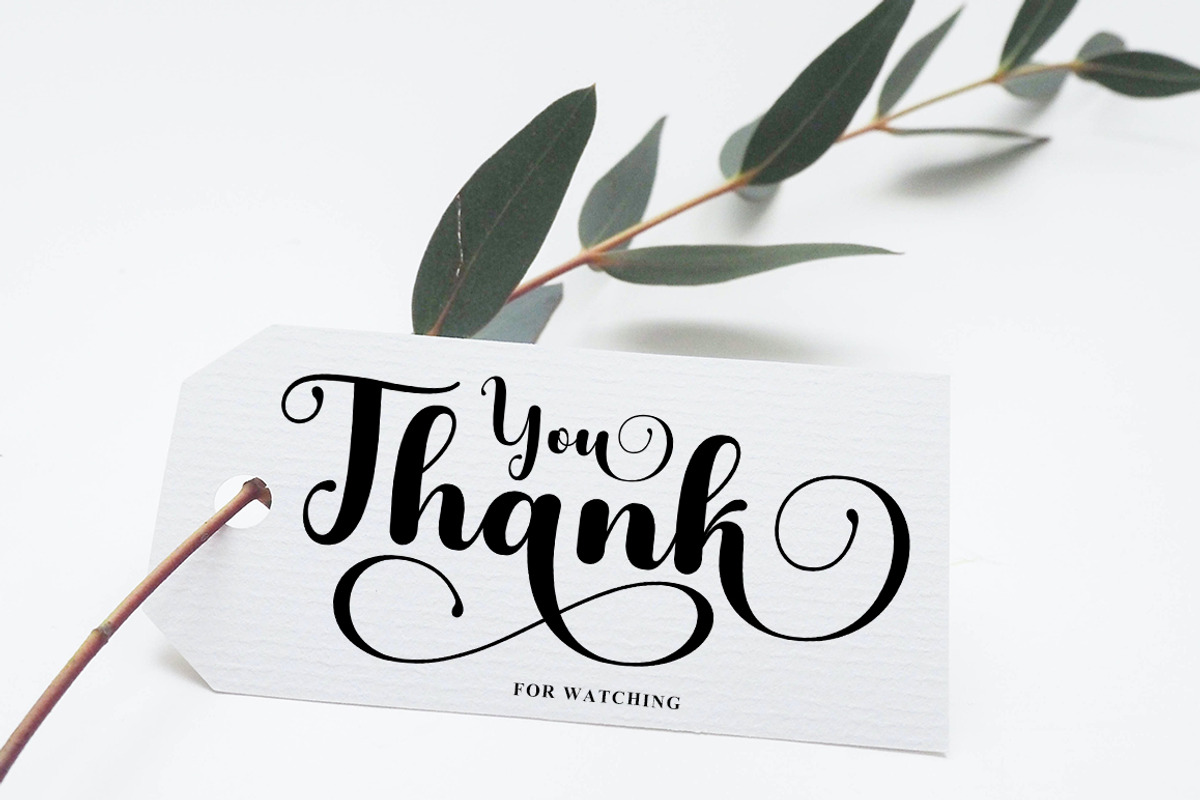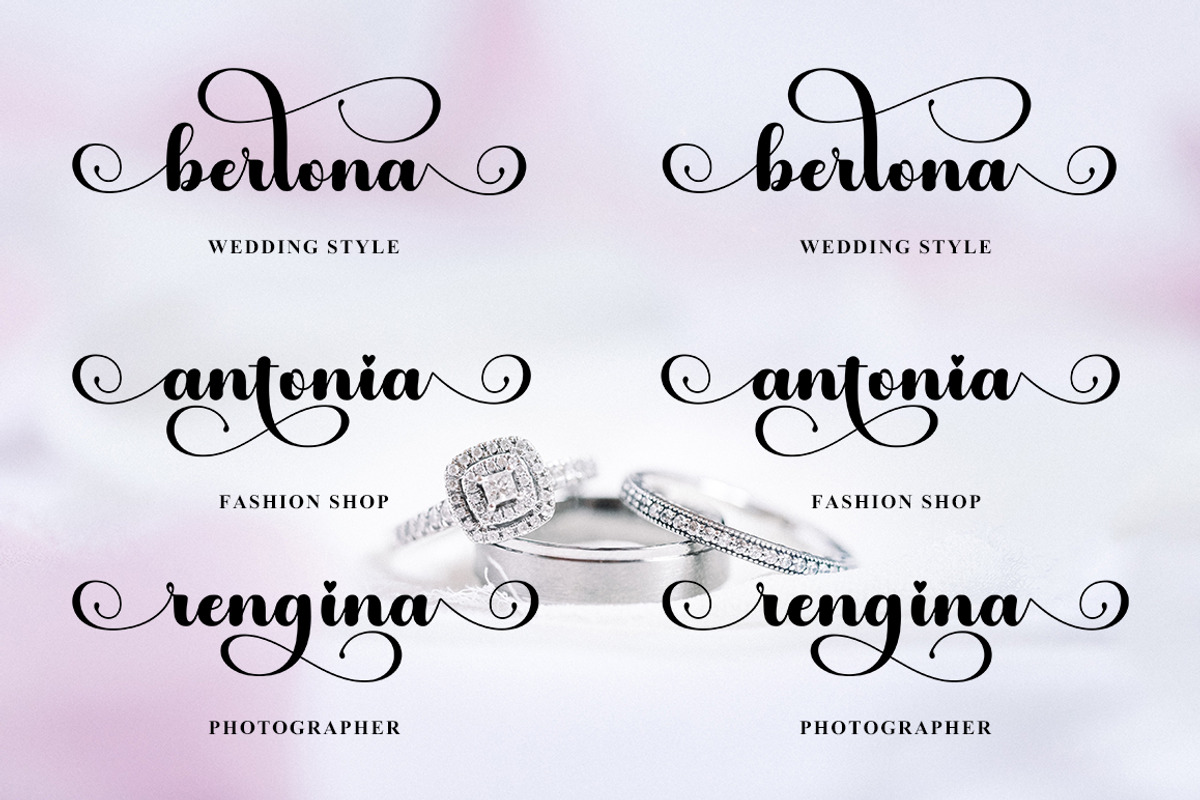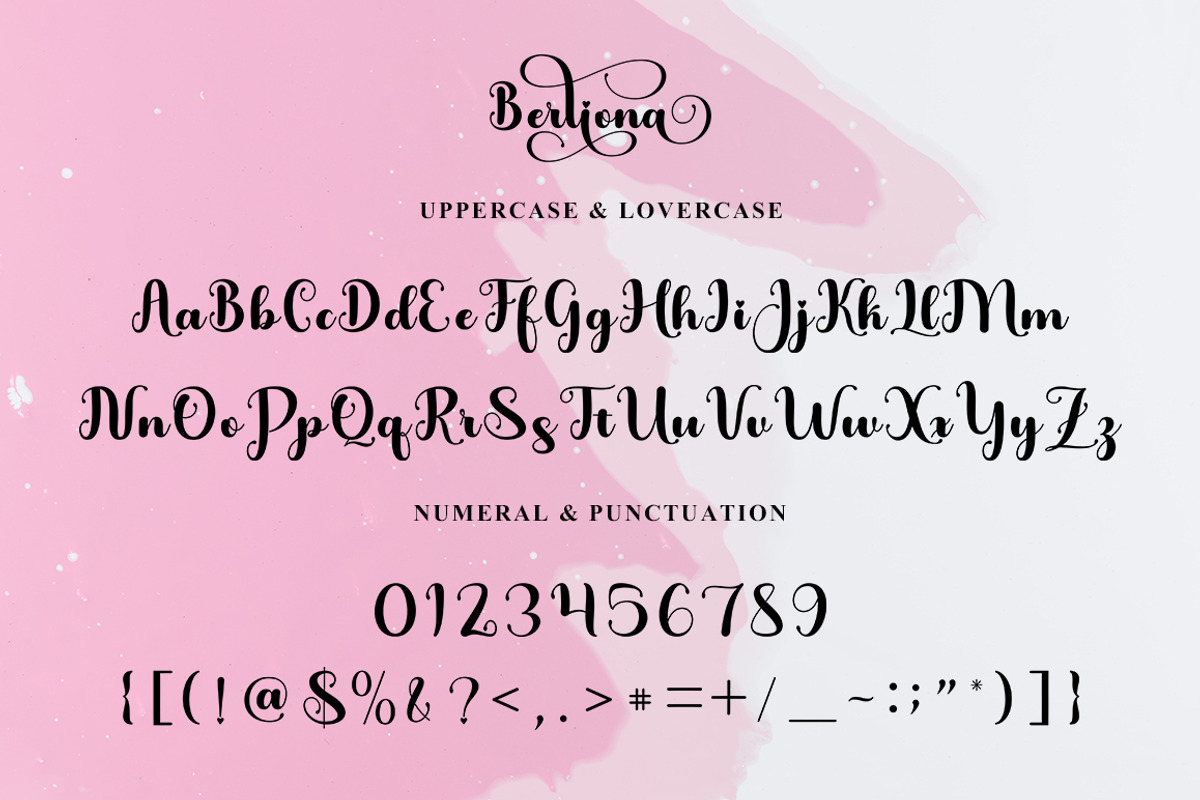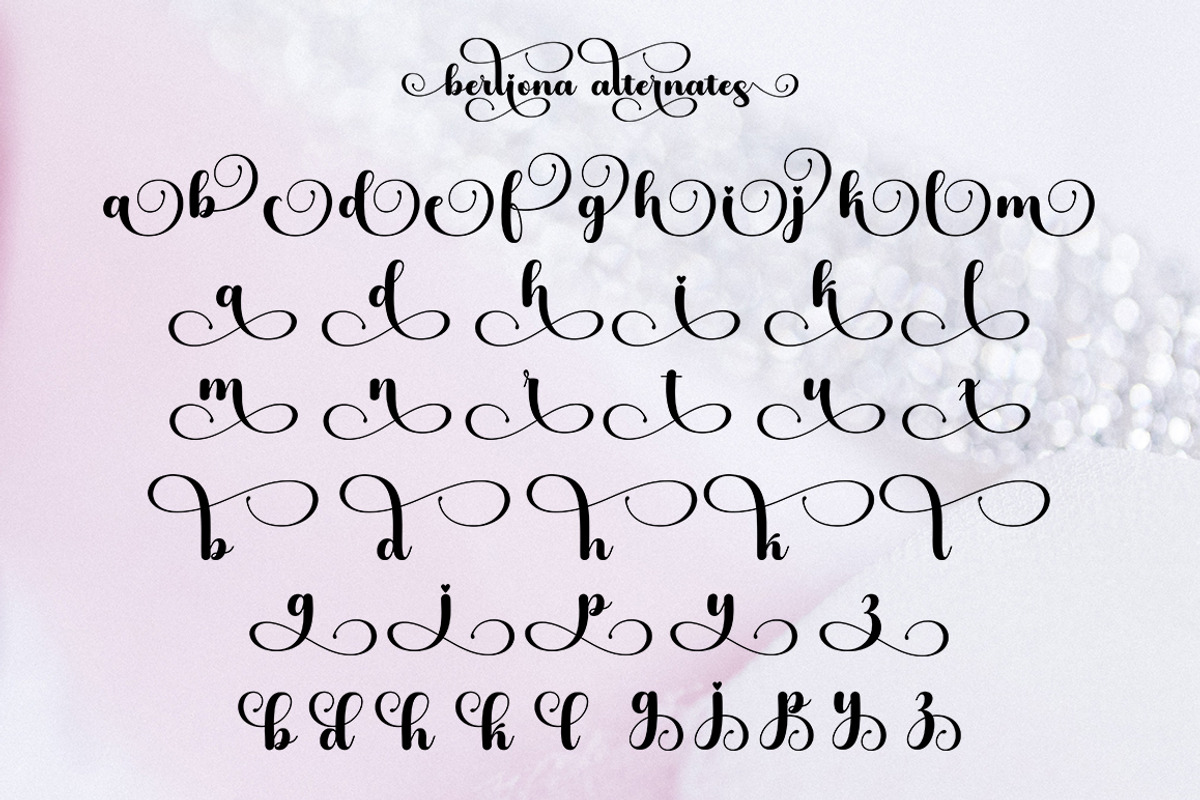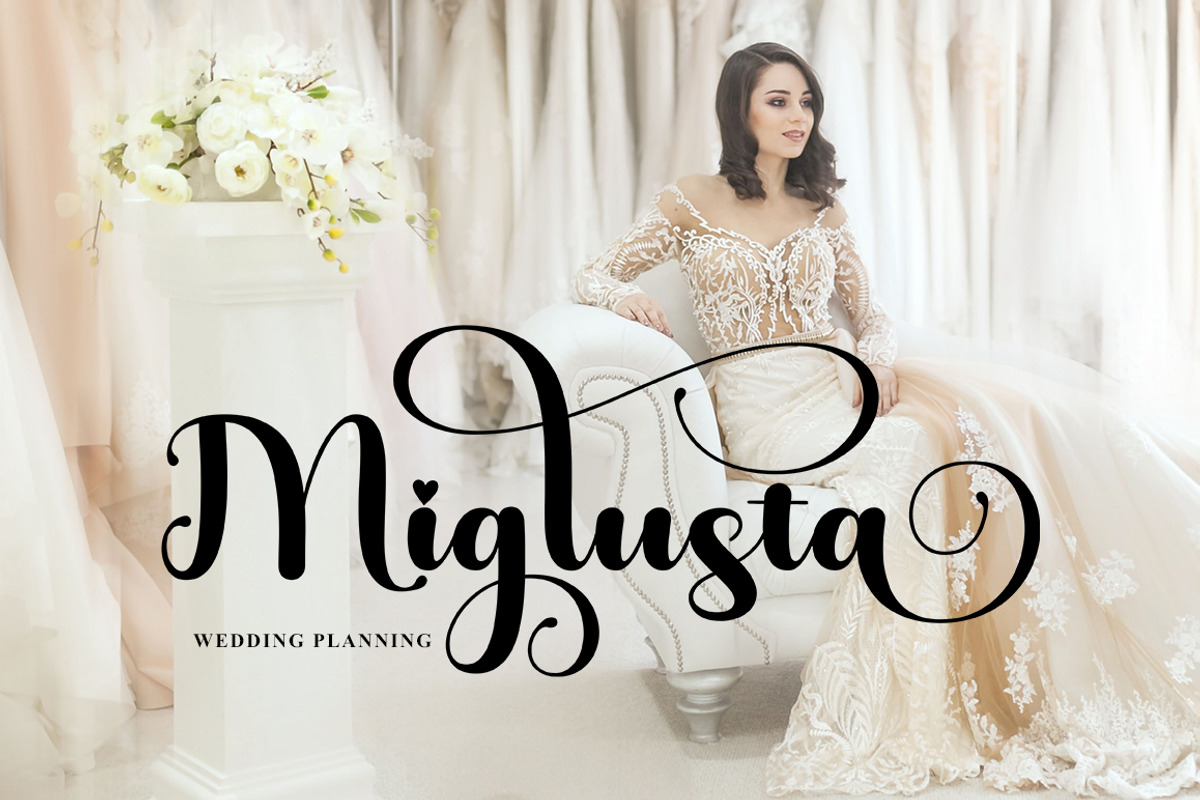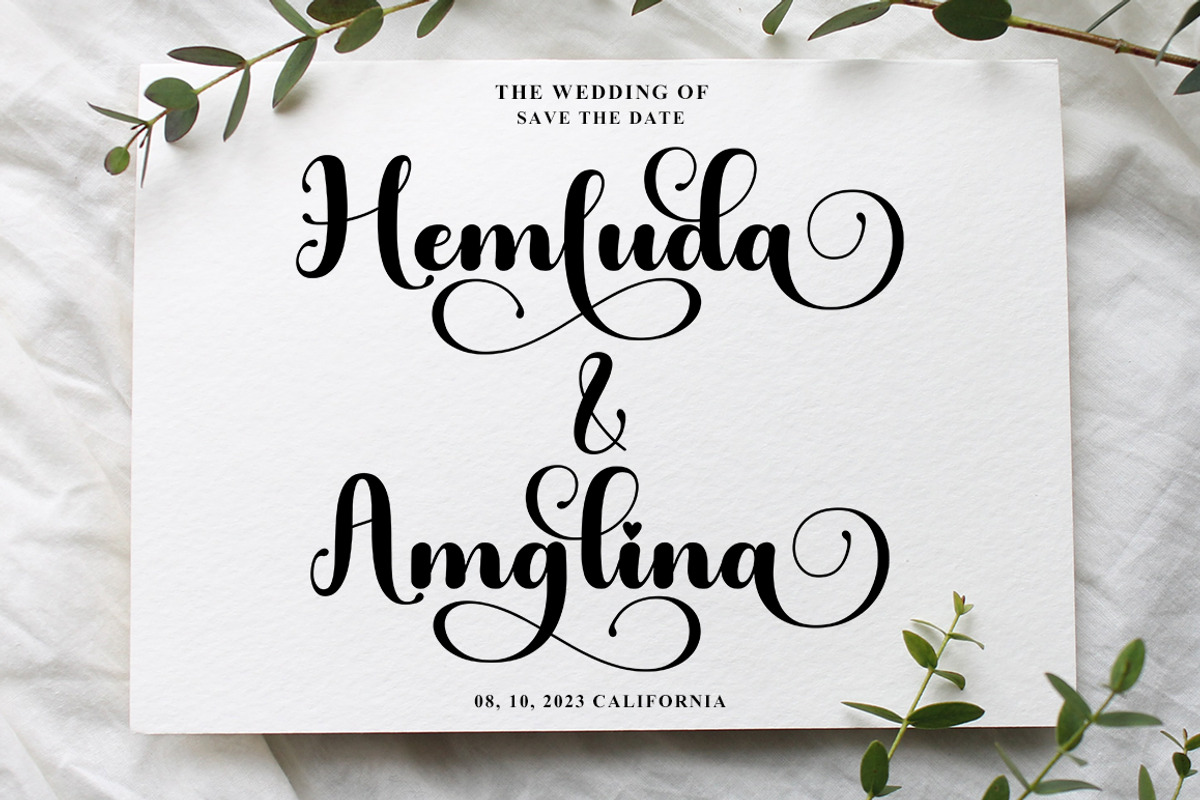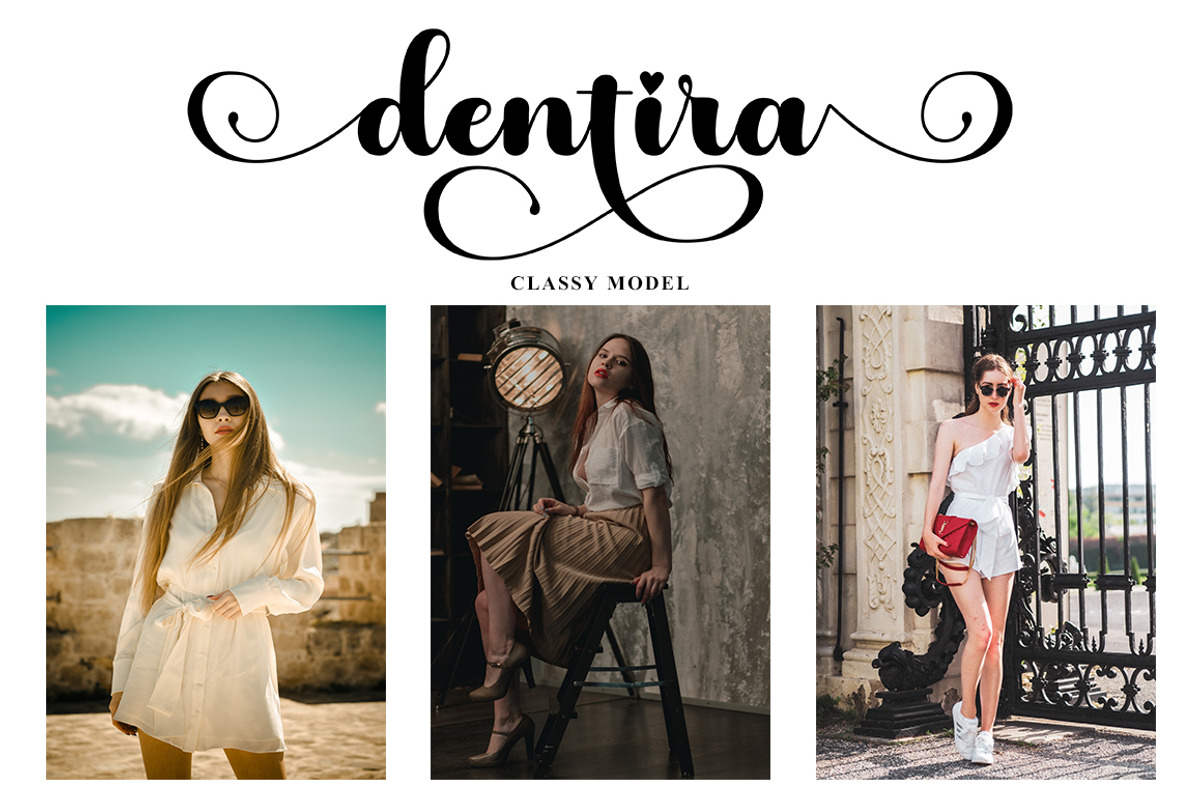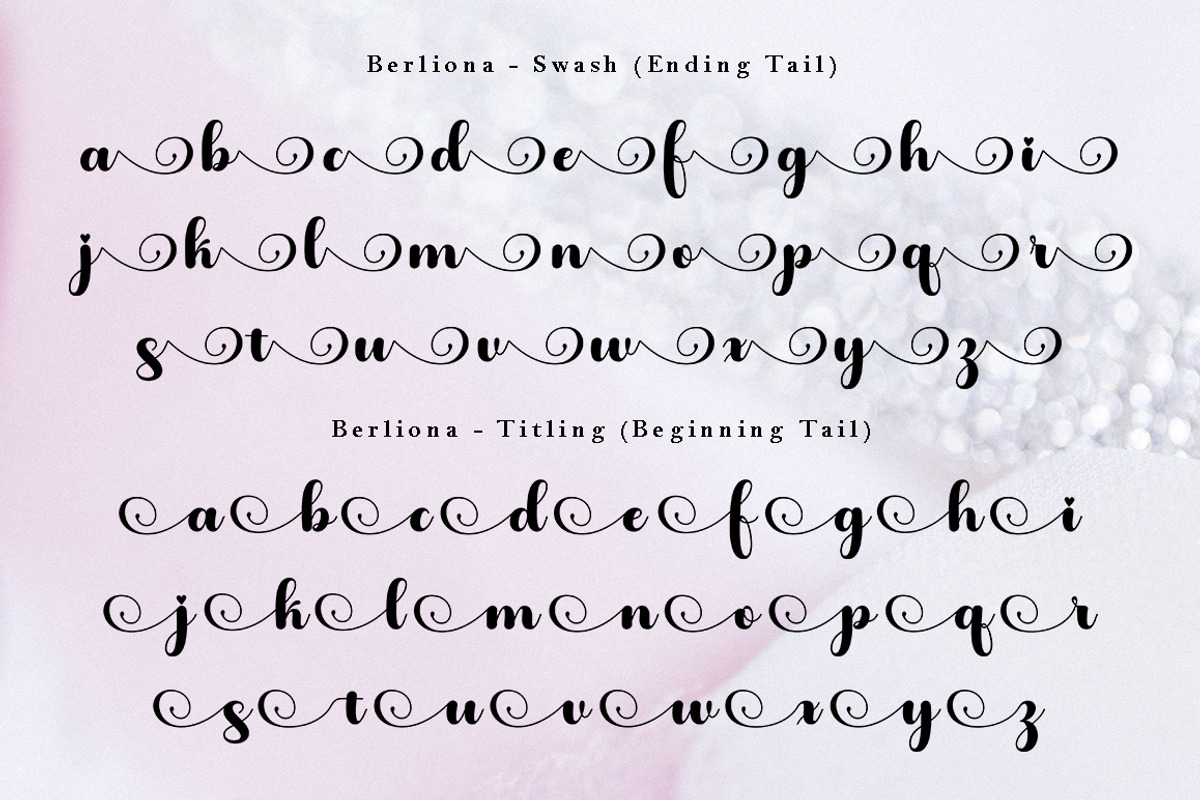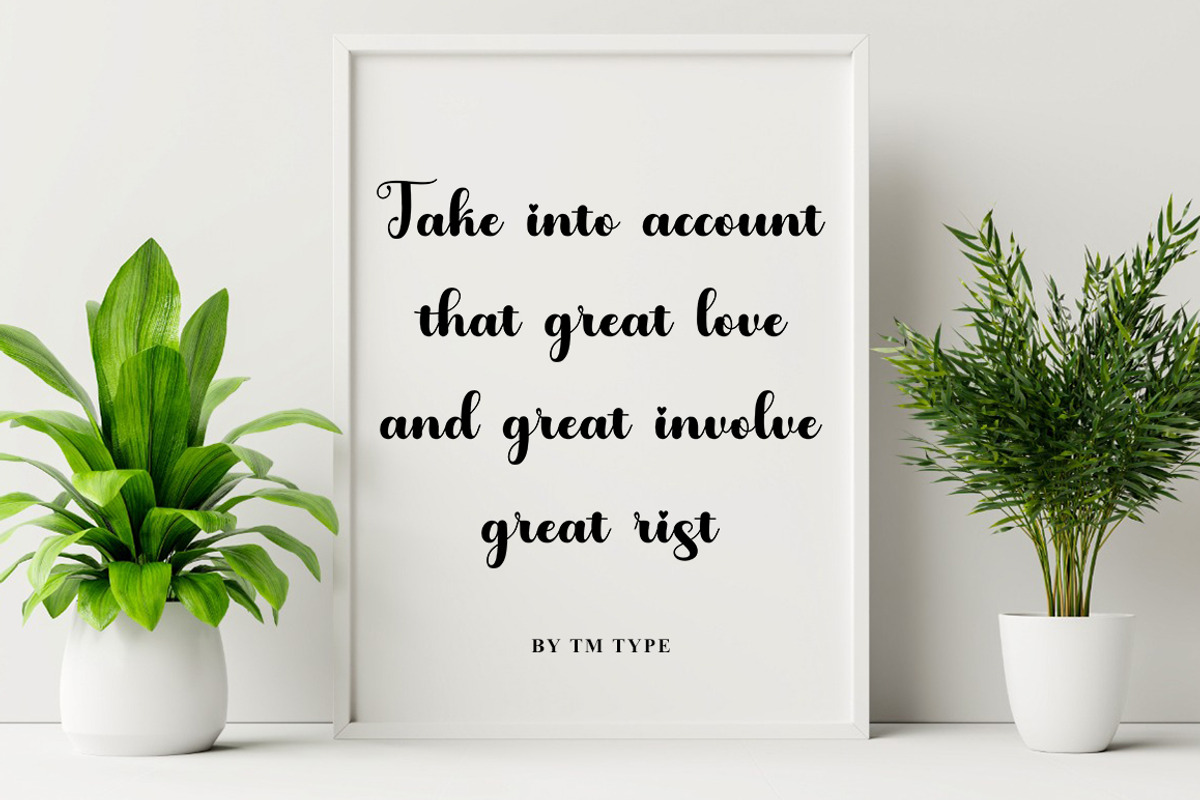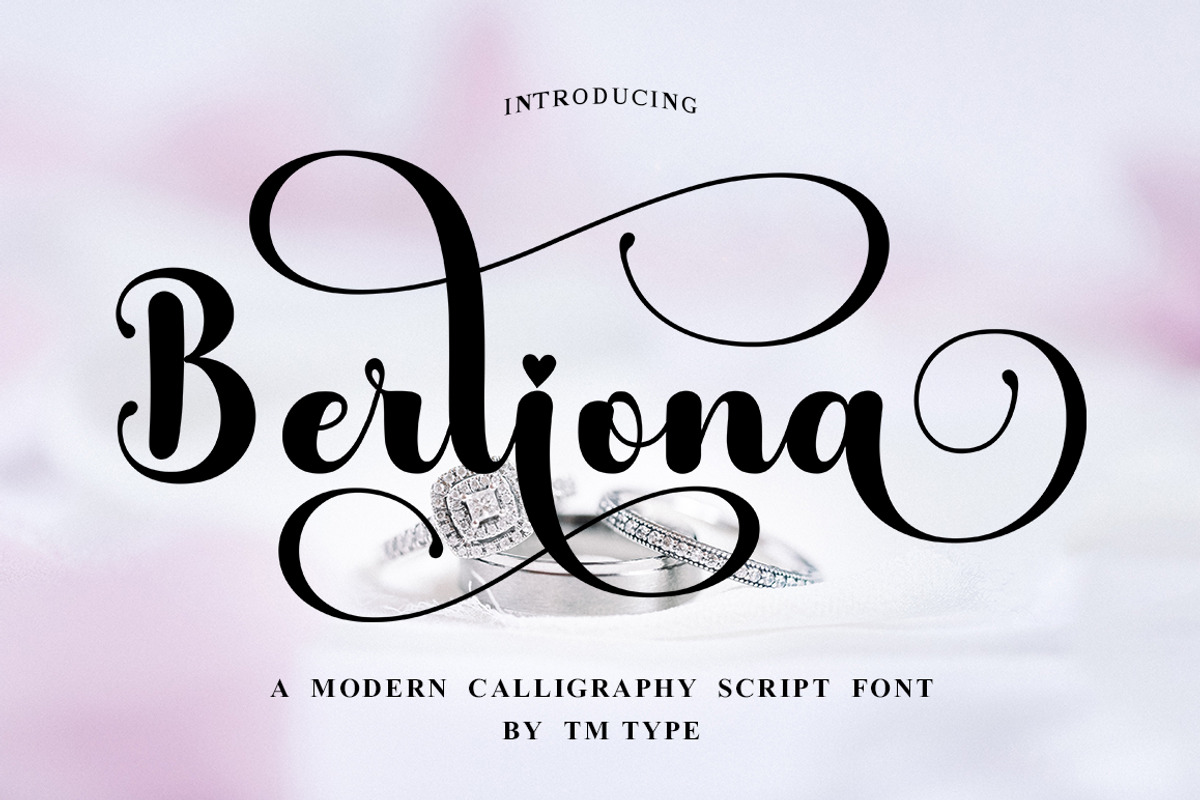
Berliona
Berliona is a beautiful handwritten font with a touch of love. Berliona is perfect for branding projects, home appliance design, product packaging, use in business cards, invitation cards, etc. Simply as a stylish text overlay onto a background image or anything else that needs a touch of elegance.